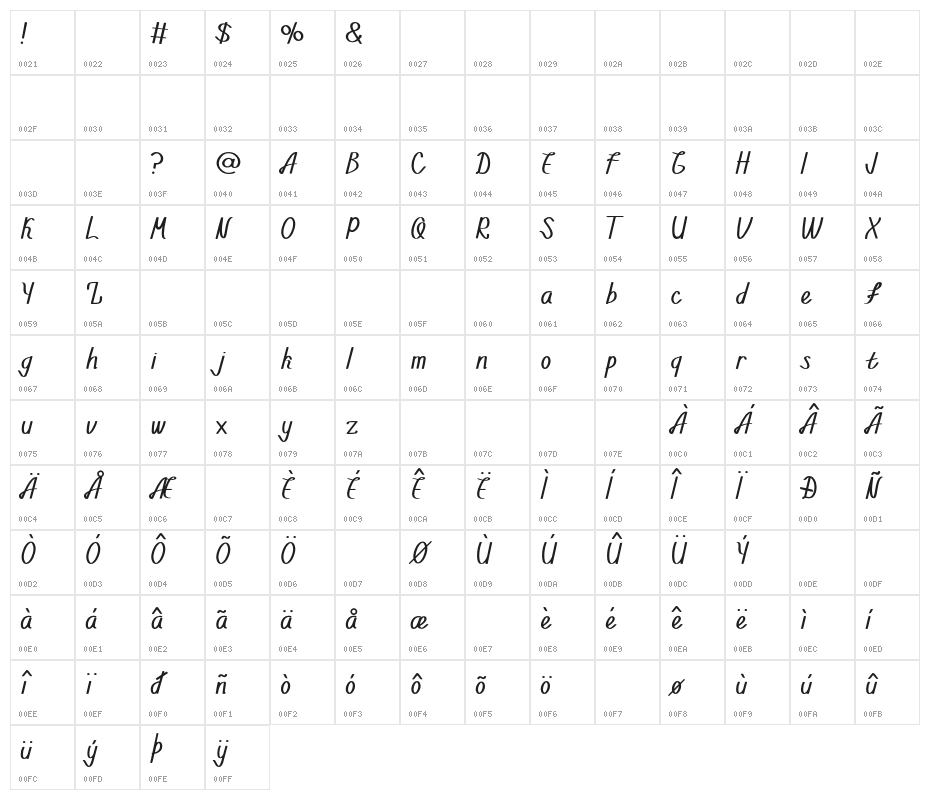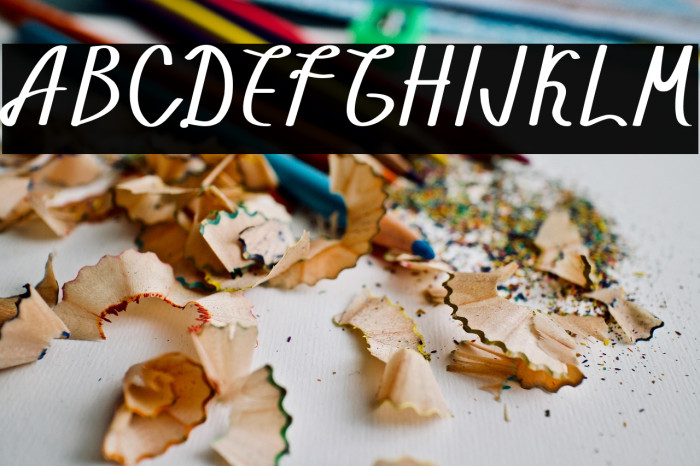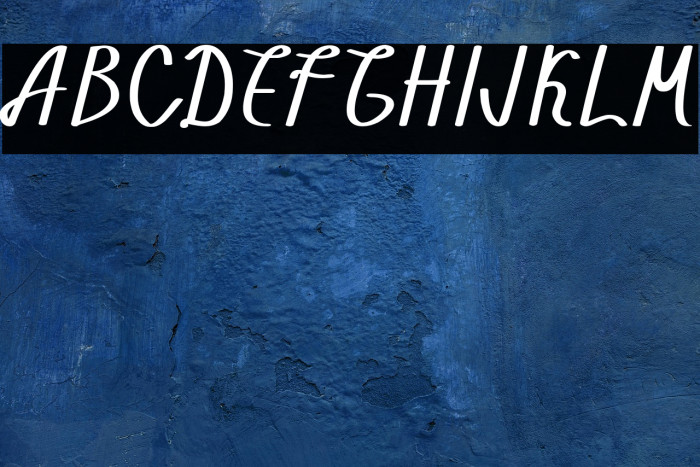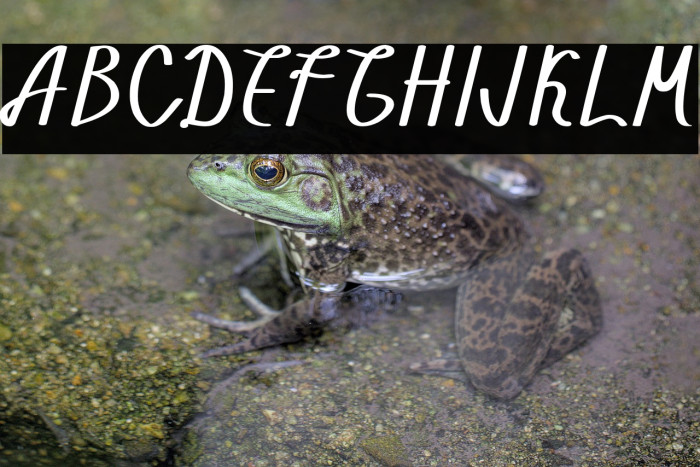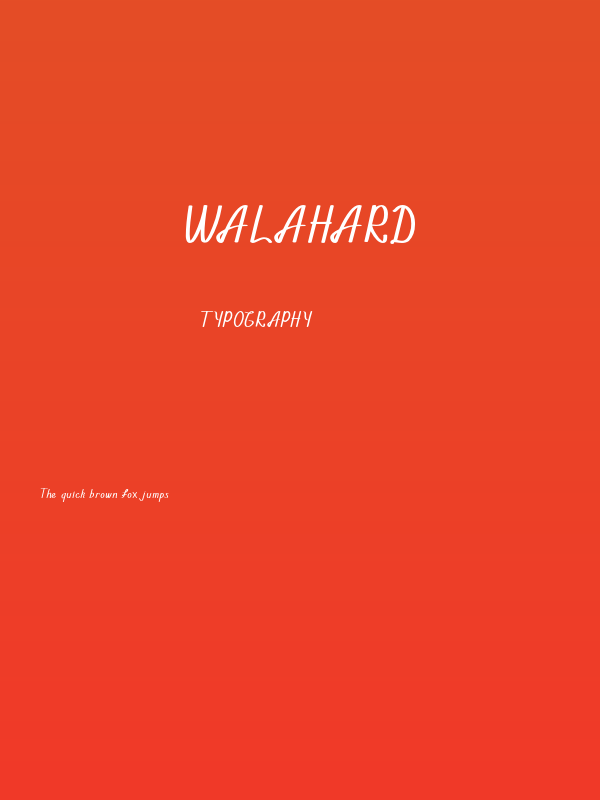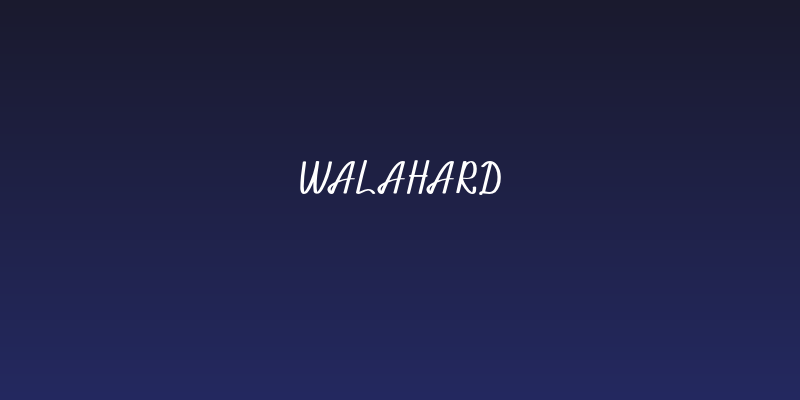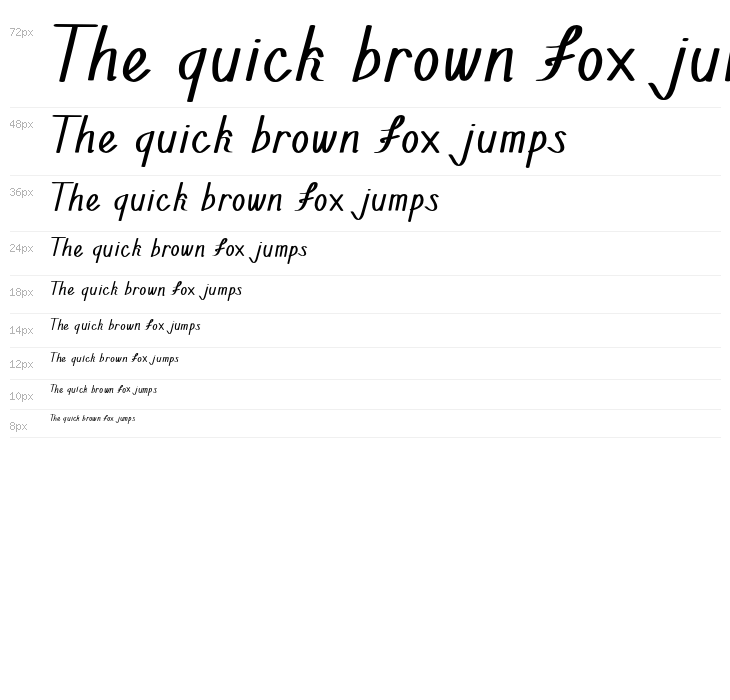
Walahard Font
Walahard Description
This font features a dynamic and flowing script style with a playful yet elegant appearance. The uppercase letters are characterized by their tall and slightly slanted forms, giving them a sense of movement and energy. The lowercase letters maintain a consistent rhythm, with smooth curves and subtle flourishes that enhance readability. The numerals are well-integrated, matching the overall style with a touch of whimsy. Special characters are thoughtfully designed, ensuring they complement the alphabetic characters seamlessly. This font's unique personality makes it suitable for creative and expressive projects.